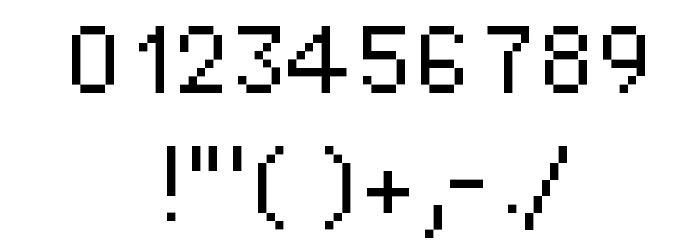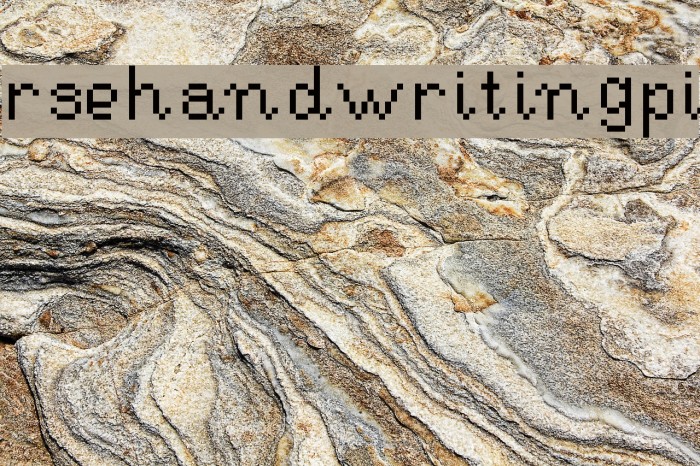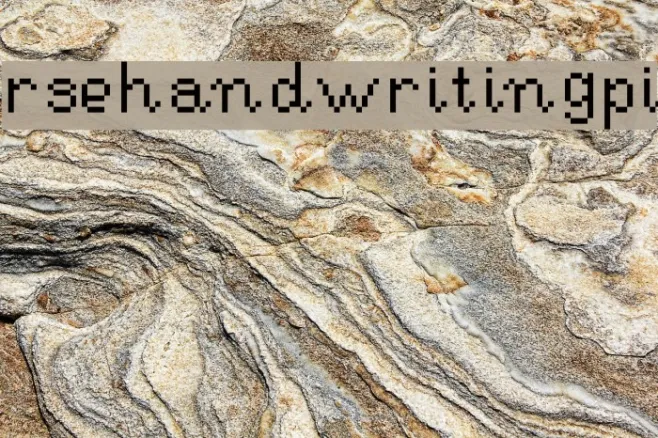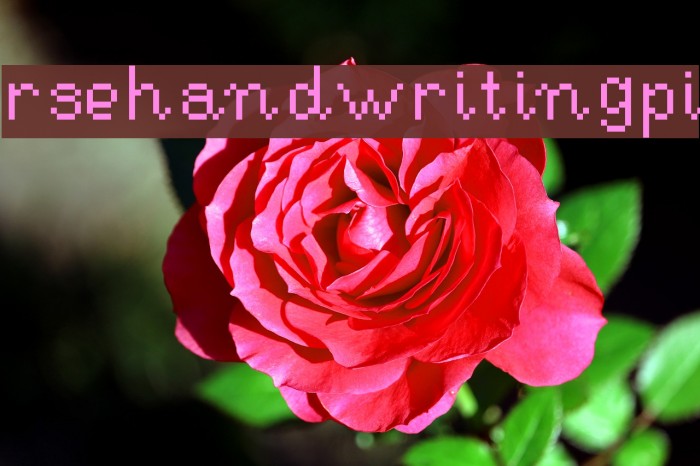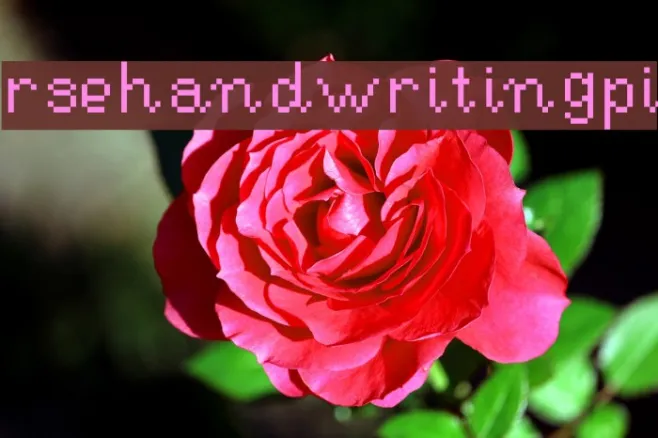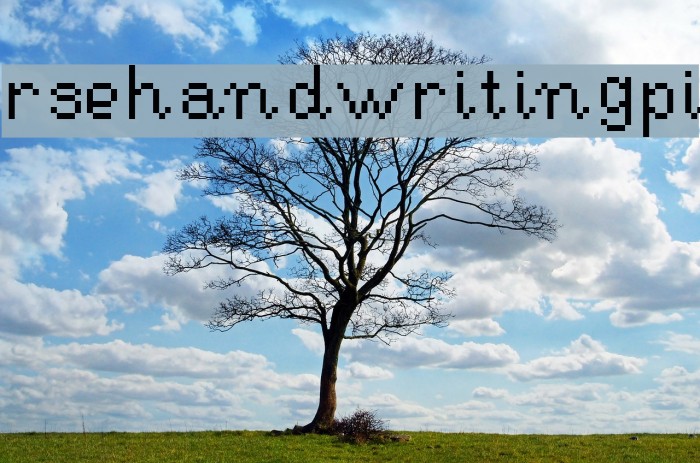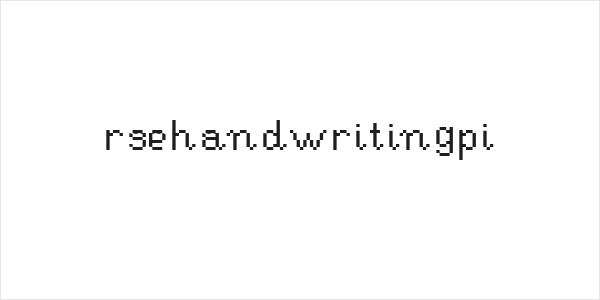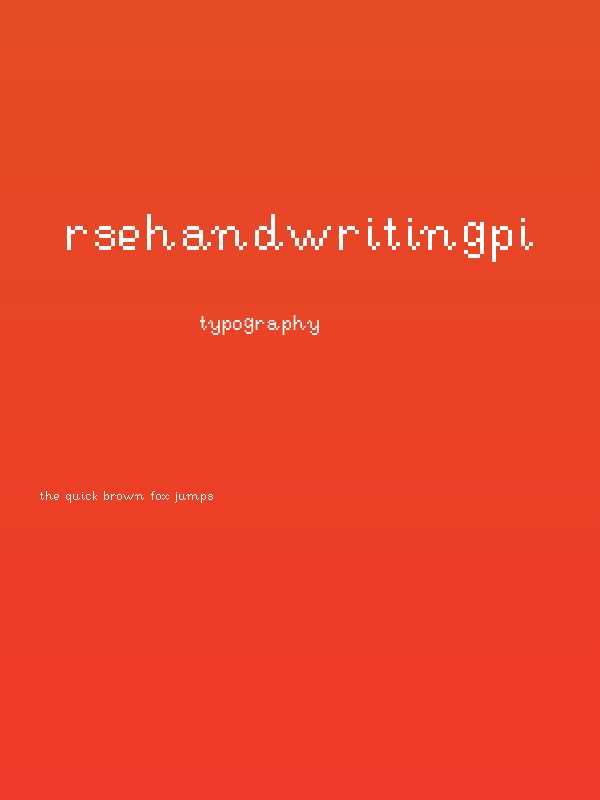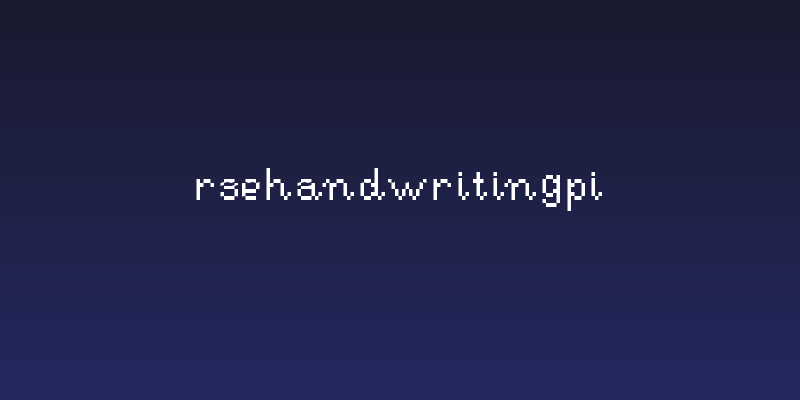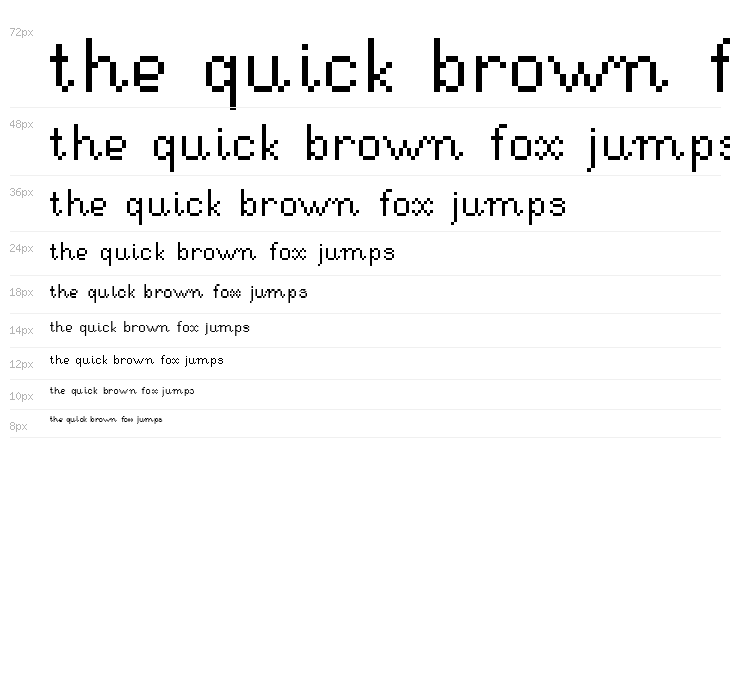
RSEHandwritingPi Font
RSEHandwritingPi Description
This font features a pixelated, monospaced design reminiscent of early digital displays and retro video games. Each character is constructed with a uniform grid-like structure, giving it a distinct, blocky appearance. The font maintains consistent spacing and alignment, making it ideal for creating a nostalgic or tech-inspired aesthetic. Its simplicity and clarity ensure readability, even at smaller sizes. The characters are evenly weighted, with no variation in stroke thickness, contributing to its clean and straightforward style.
| Use Case | Logos, Digital displays, Coding interfaces |
| Proposed Projects | Ideal for retro-themed designs, video game graphics, digital art projects, and coding interfaces. |